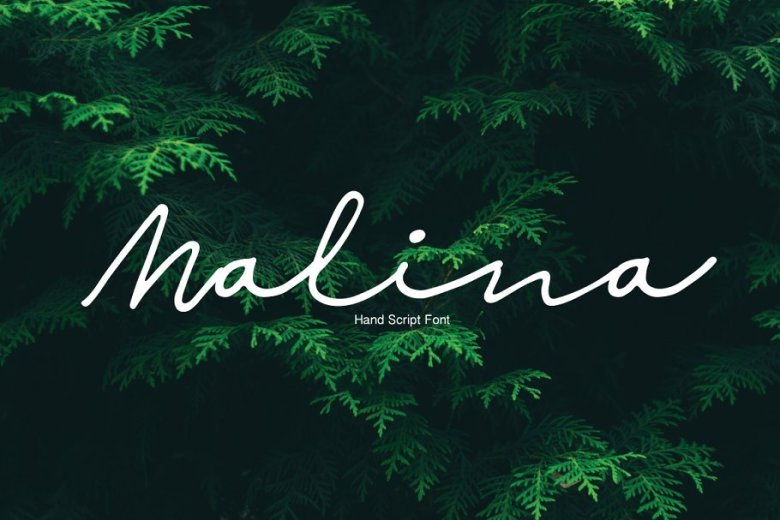
Malina Script Font
Continues to be a very beautiful handwritten script font. Its’s perfect for you to give your design an authentic touch. We hope you enjoy the font. Introducing Malina Font. This font are perfect for wedding invitation or your blog. Also with their help, you can create a logo or beautiful frame for your home. Or just use for your small business, book covers, stationery and more.